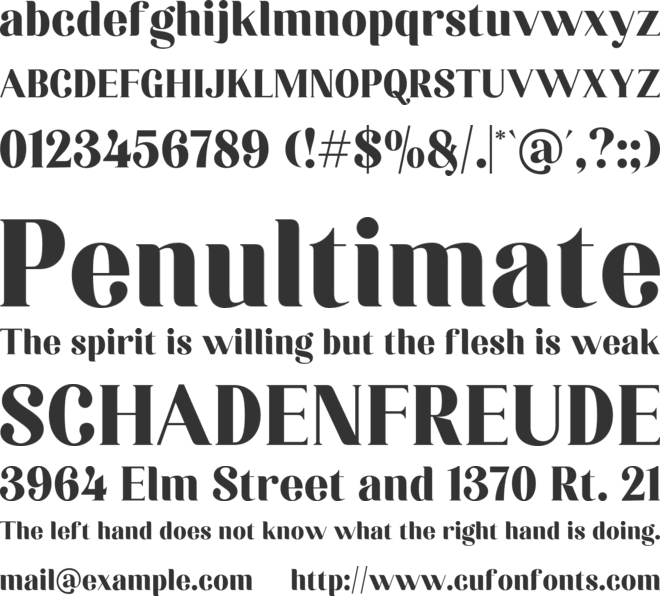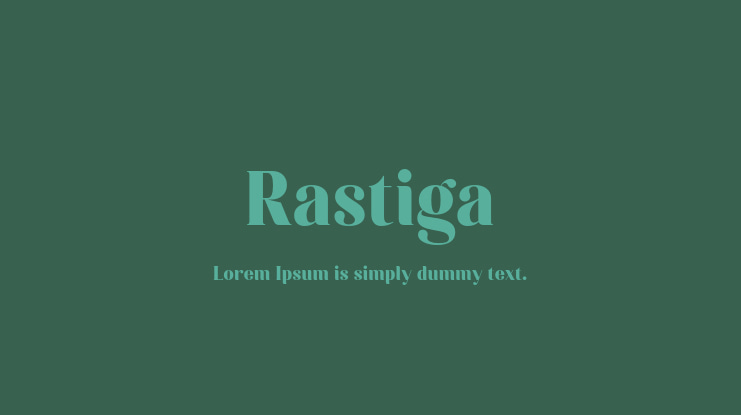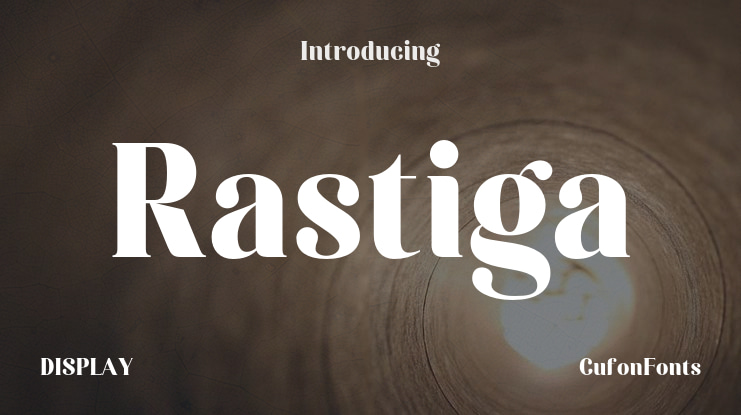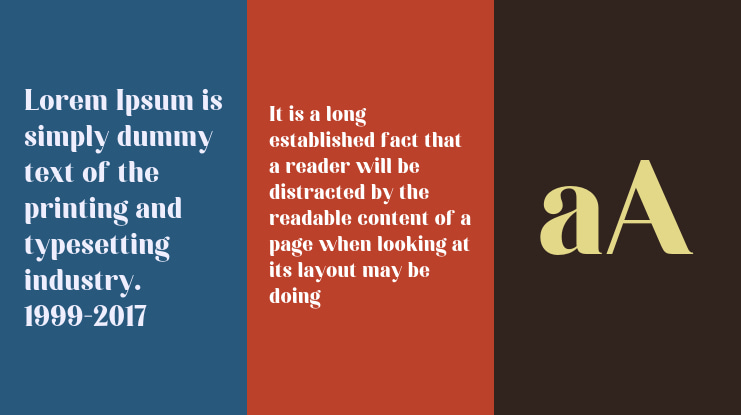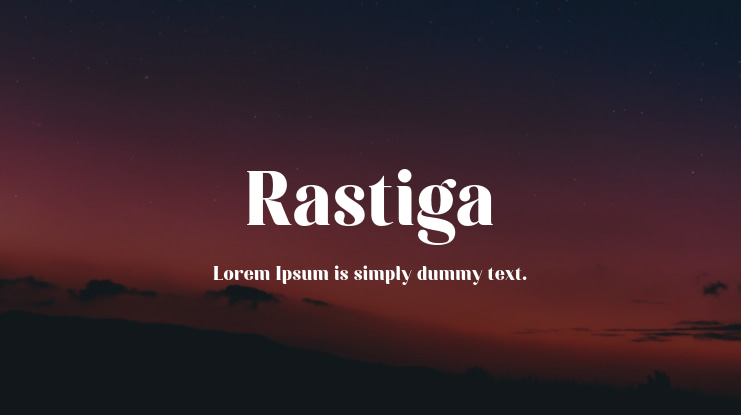
Rastiga Font
Rastiga is a stylish serif font that exudes a bold and elegant vibe with a hint of retro flair. Its distinct letter shapes are clear and easy to read, featuring simple curves at the ends. Please note that the Rastiga demo font is for personal use only. Any donations are greatly appreciated. Stay updated by following IG: https://instagram.com/glyphstyle. To make a donation, you can visit the Paypal account at: https://www.paypal.me/dimasardhi.